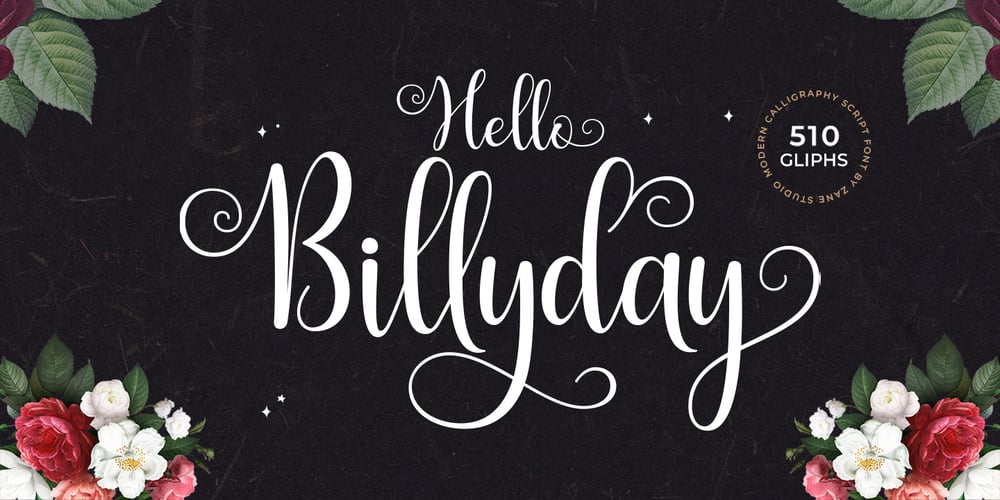
Hello Billyday
Hello Billyday font
Hello Billyday Font Family was designed by Mur Zani and published by Zane Studio. Hello Billyday contains 1 styles and family package options. Hello Billyday Script is a soft and sweet calligraphic typeface, with the characters dancing along the baseline. It has a casual and elegant touch. It can be used for various purposes such as logos, wedding invitations, titles, t-shirts, letterheads, nameplates, labels, news, posters, badges etc.Features OpenType with stylistic alternatives, ligatures, and multiple language support.To enable the OpenType Stylistic alternative, you need a program that supports OpenType features such as Adobe Illustrator CS, Adobe Indesign & CorelDraw X6-X7, Microsoft Word 2010 or a later version.Thank you!